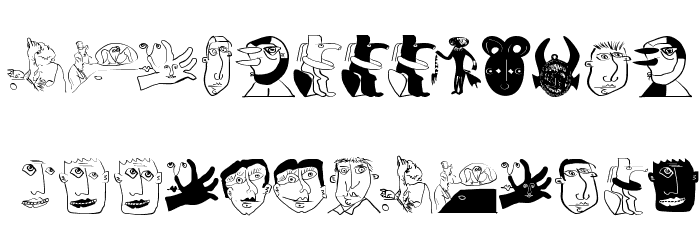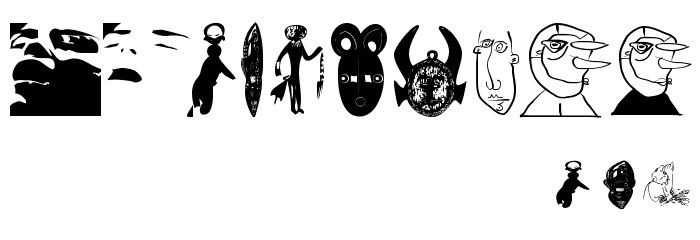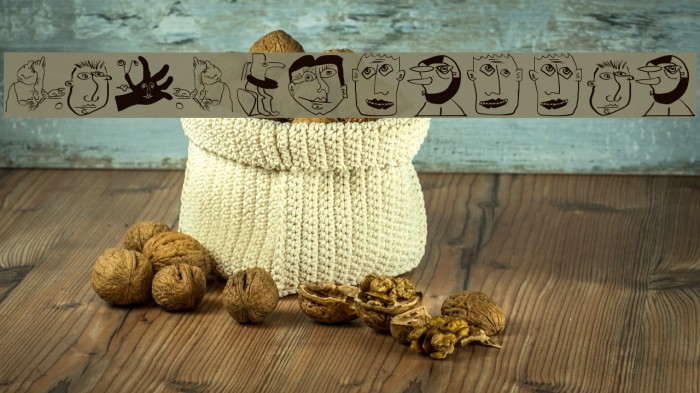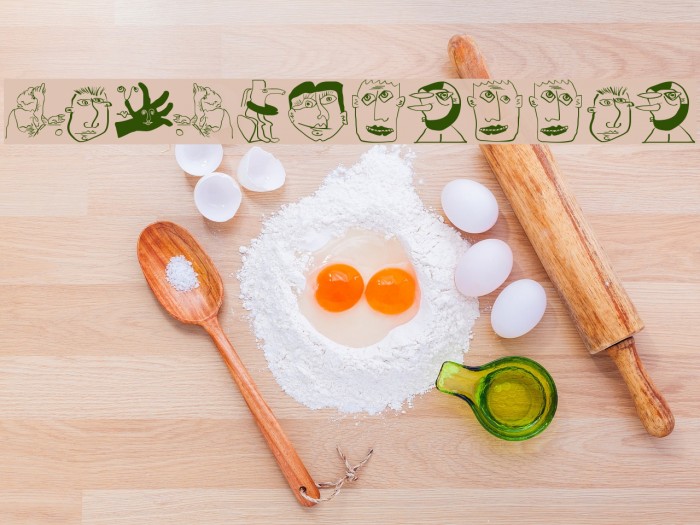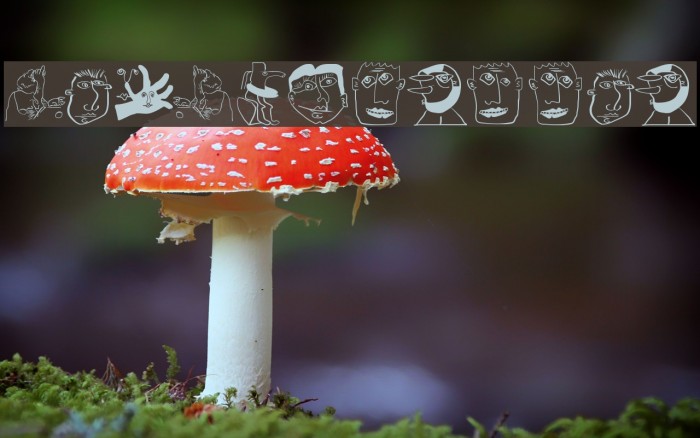
AlwaysPeople Font
This is a highly creative and artistic font that features a series of abstract and whimsical character illustrations. Each character is uniquely designed, resembling a blend of cartoonish and surreal art styles. The font does not follow traditional typographic conventions, instead offering a playful and expressive visual experience. It is ideal for projects that require a distinctive and eye-catching aesthetic, such as art installations, creative branding, or unique poster designs. The characters are bold and varied, with intricate details that make each one stand out individually.
An artistic and whimsical font featuring abstract character illustrations.
- Proposed Projects: Ideal for creative branding, art installations, unique poster designs, and any project needing a distinctive visual style.
- Use Case: Logos, Headlines, Artistic projects